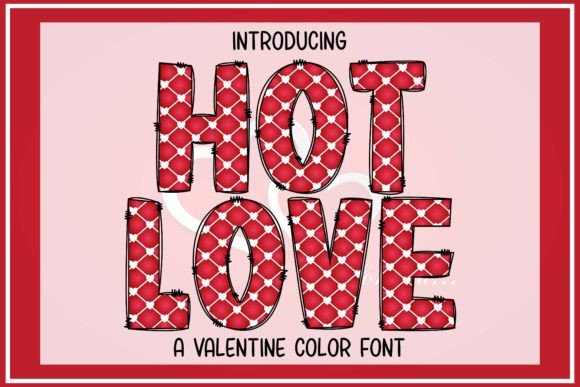
Unleash the Love with Hot Love Font: A Valentine's Day Delight for Your Designs
In a world saturated with dull and conventional fonts, Hot Love Font stands out as a beacon of vibrant creativity, beckoning you to embrace the spirit of love and heartfelt expression. This enchanting handcrafted colored font, meticulously crafted by the talented Phongsakon Phonkhammak, is a testament to the transformative power of typography.
With its captivating patterns reminiscent of Valentine's Day, Hot Love Font is an artistic masterpiece that breathes life into your designs. The intricate details, playful colors, and charming aesthetics of this font family will captivate your audience, leaving an indelible mark on their hearts.
Immerse yourself in a symphony of emotions as the Hot Love Font carries your words with grace and elegance. The letters, adorned with hearts, flowers, and delightful motifs, dance across the page like a love letter come to life. Let the romance flow through your designs as you create invitations, cards, posters, and social media graphics that exude warmth and affection.
Indulge in the versatility of the Hot Love Font, a font family that adapts seamlessly to a myriad of creative endeavors. Whether you're a seasoned designer or a budding enthusiast, the intuitive nature of this font makes it accessible to all. Experience the joy of crafting designs that speak volumes, conveying messages of love, friendship, and heartfelt connections.
Step into the world of Hot Love Font and discover a treasure trove of creative possibilities. Embrace the beauty of love and let your designs blossom with passion and charm. Transform your projects into expressions of pure bliss, leaving your audience spellbound by the magic of Hot Love Font.